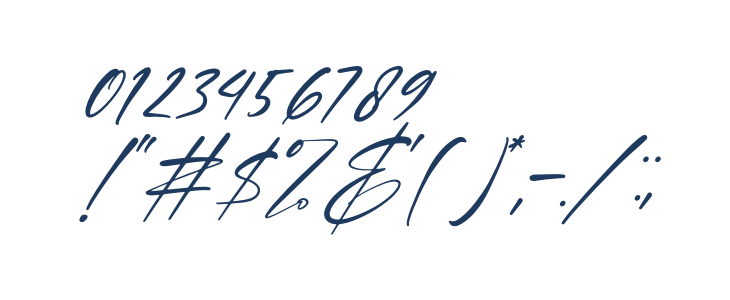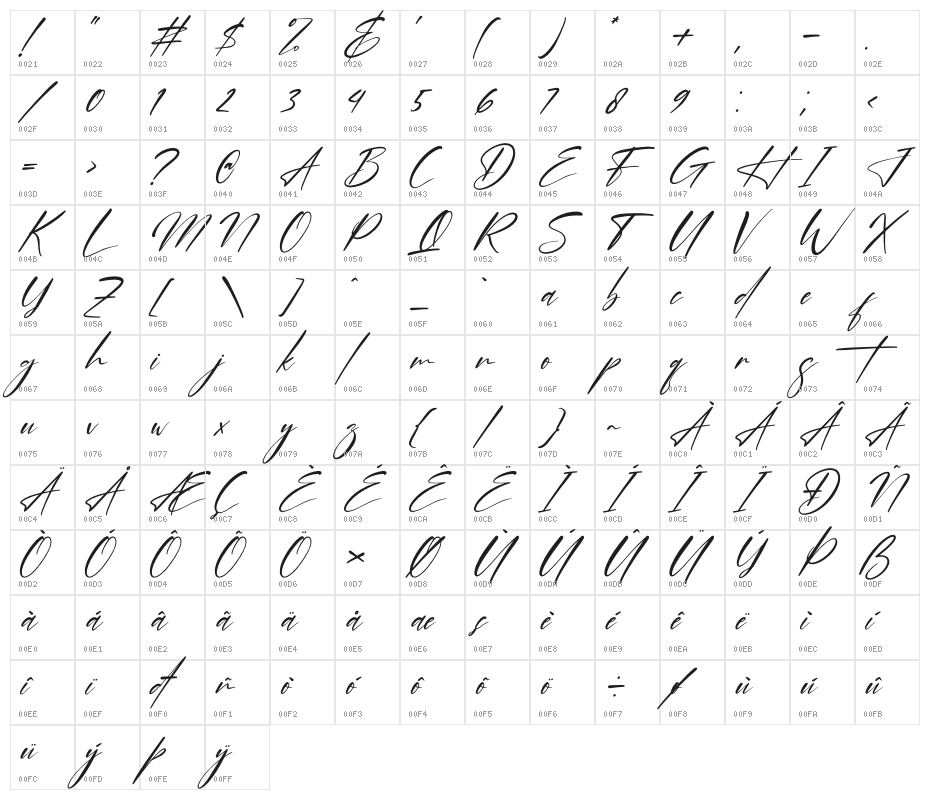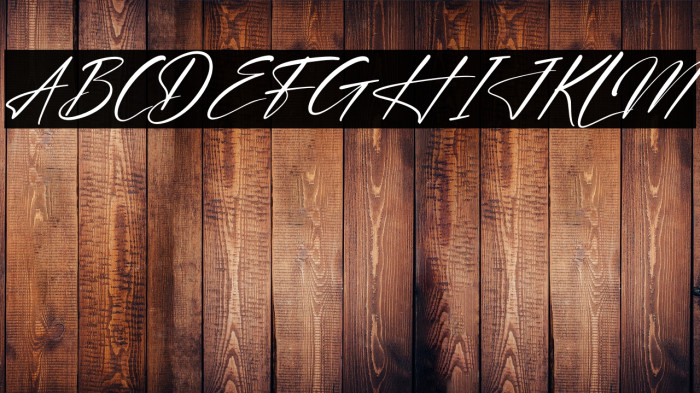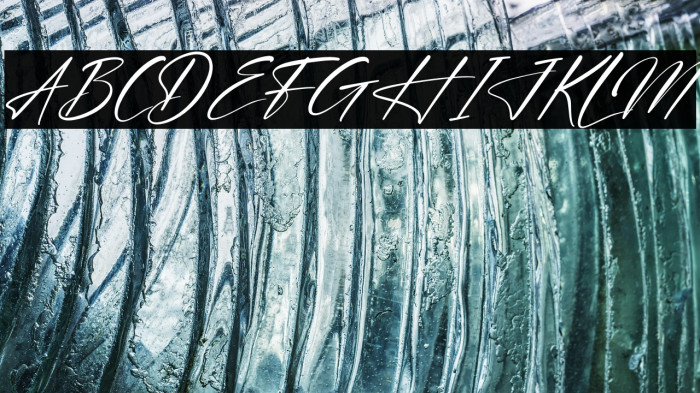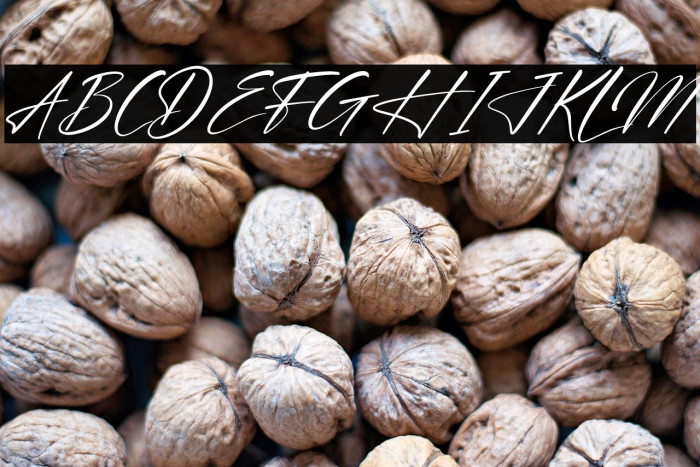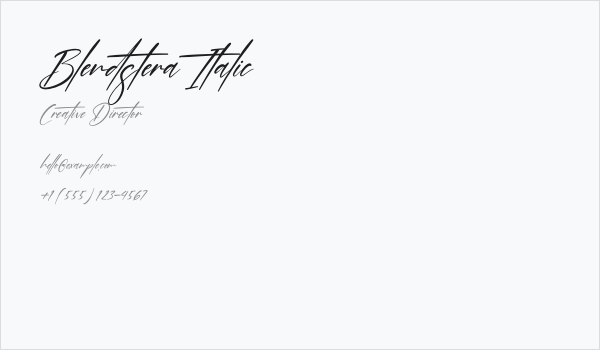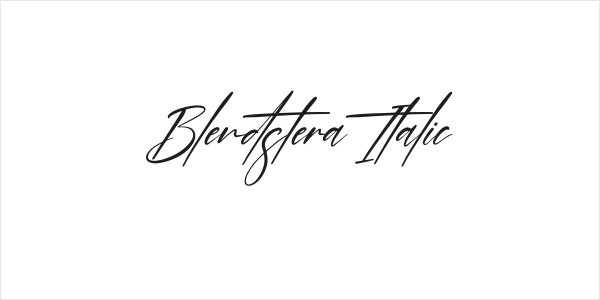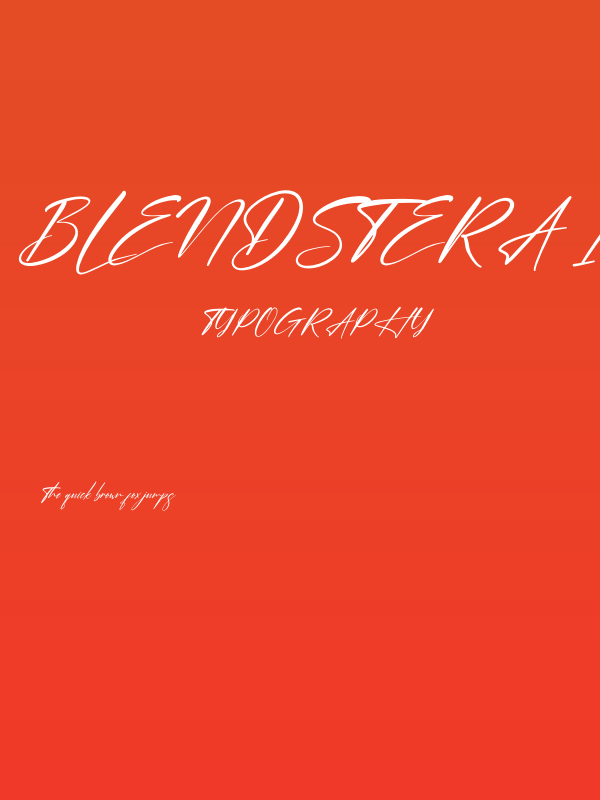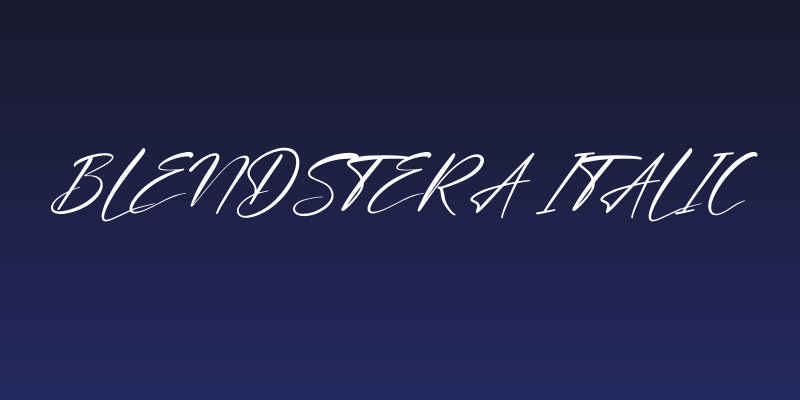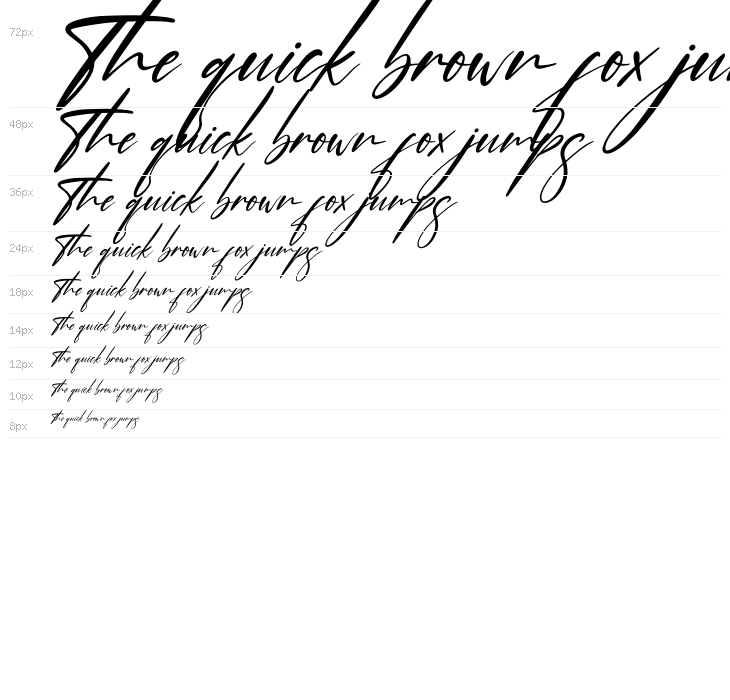
Blendstera Italic Font
Blendstera Italic Description
This font features a dynamic and fluid script style, characterized by its elegant, flowing lines and italicized form. The uppercase letters exhibit a sense of movement with their elongated and slightly slanted strokes, while the lowercase letters maintain a cohesive and connected appearance, enhancing the script's cursive nature. The numerals are consistent with the overall style, offering a harmonious blend with the alphabetic characters. Special characters are thoughtfully integrated, maintaining the font's aesthetic appeal. The overall design is both sophisticated and expressive, making it suitable for projects that require a personal touch.
| Overall Style | Elegant, Expressive |
| Proposed Projects | Ideal for wedding invitations, personal branding, elegant logos, and artistic projects. |